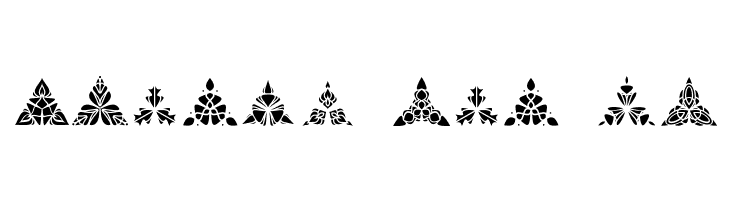
A playful, cursive font with bold, flowing strokes and elegant curves.
A playful and artistic script font with fluid, dynamic strokes.
A bold, distressed font with a grunge texture and urban flair.
A bold, decorative font with an urban grid texture and strong visual impact.
A bold, distressed stencil font with an urban, industrial vibe.
A bold, graffiti-inspired font with an urban, artistic style.
( Fonts by FontGrube AH - Andreas Höfeld - Personal-use only. For commercial use please contact owner. )
An elegant, decorative script font with ornate flourishes.
( Clara Lizano - vindicta.ph/ )
A playful, hand-drawn brushstroke font with a textured, sketch-like appearance.
( Eva Barabasne Olasz - www.etsy.com/ie/shop/digitaltypefaces )
An elegant and flowing script font with intricate letterforms.
A bold, futuristic font with geometric and angular design elements.
A bold, geometric 3D font with a modern and striking appearance.